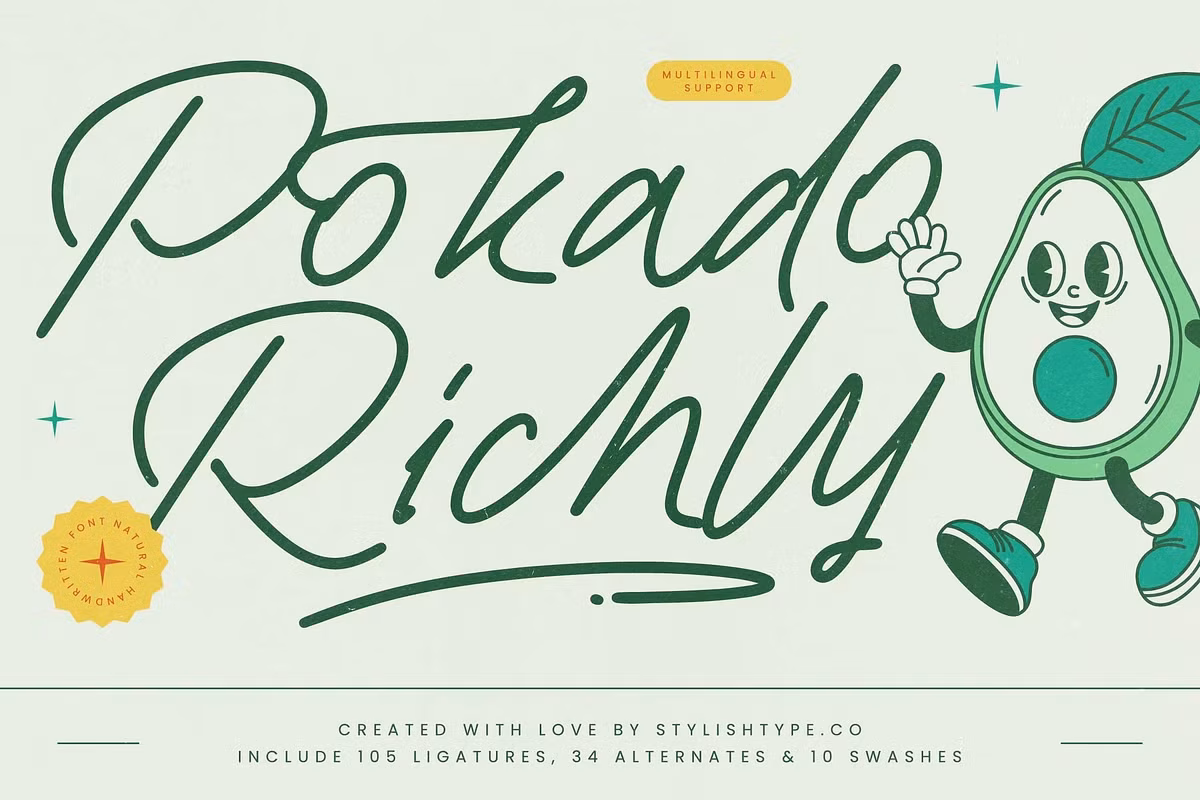
Pokado Richly Natural Handwritten Free Download
Pokado Richly Natural Handwritten Font Free Download
Pokado Richly Natural Handwritten Font Free Download is a beautifully crafted, organic handwritten font that exudes warmth and authenticity. With its natural flow and slightly imperfect strokes, this font is perfect for crafting custom logos, invitations, greeting cards, product packaging, and any design project that needs a personal, handcrafted feel. Its charming style gives your designs a genuine and approachable vibe.
Using the Pokado Richly Natural Handwritten Font Free Download adds a unique, creative touch to your work. Whether you're designing for a handmade brand, creating a personal message, or adding flair to a product label, this font brings a natural and artistic touch to every letter.